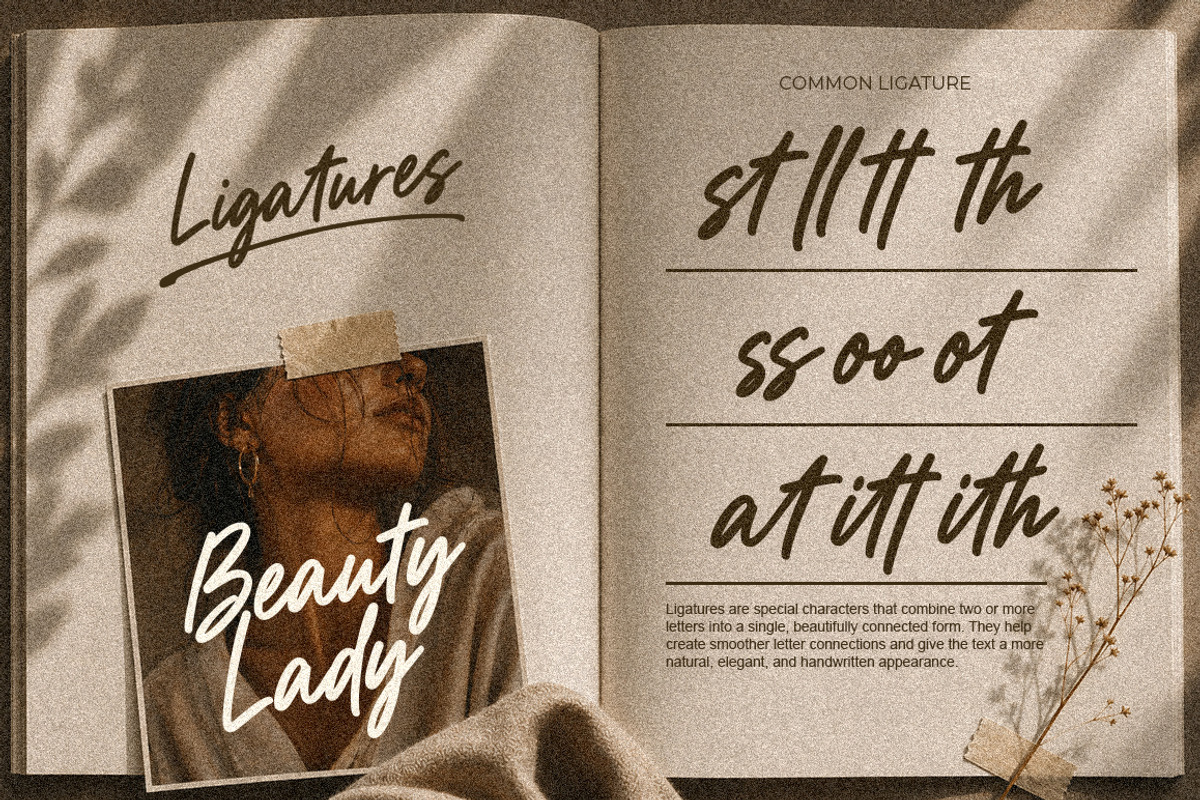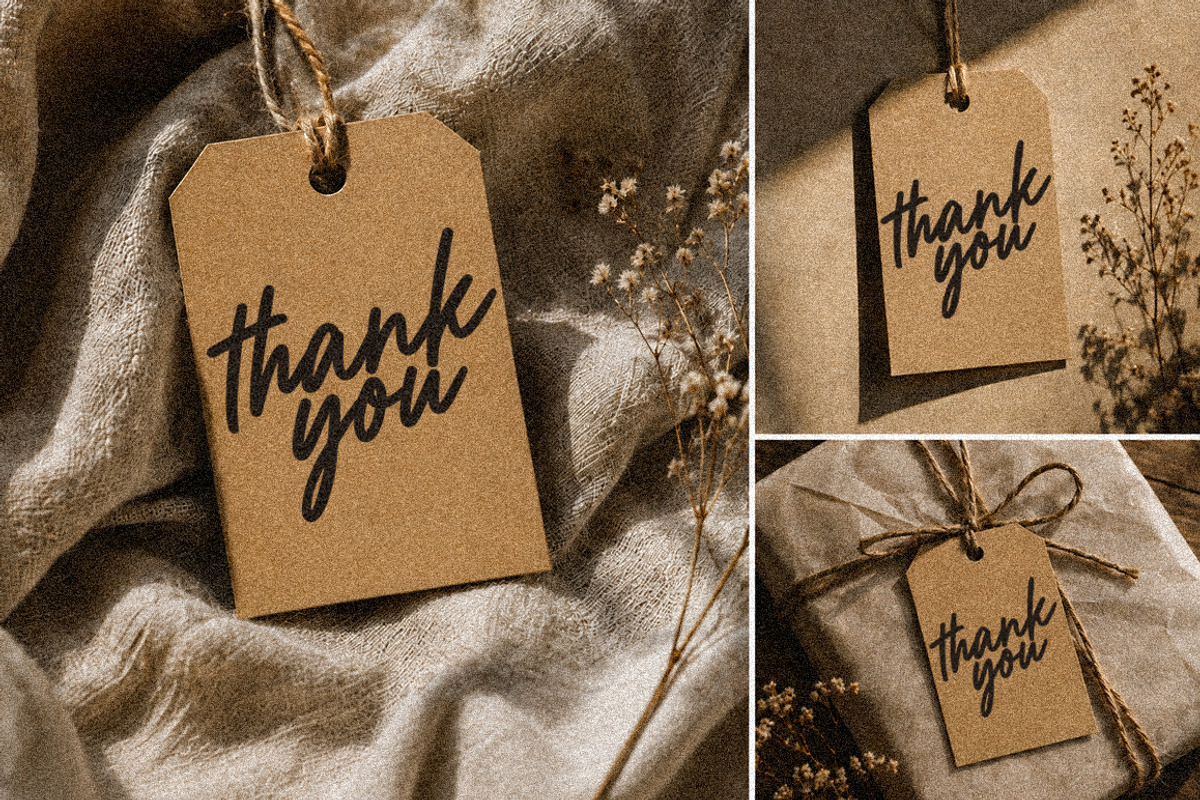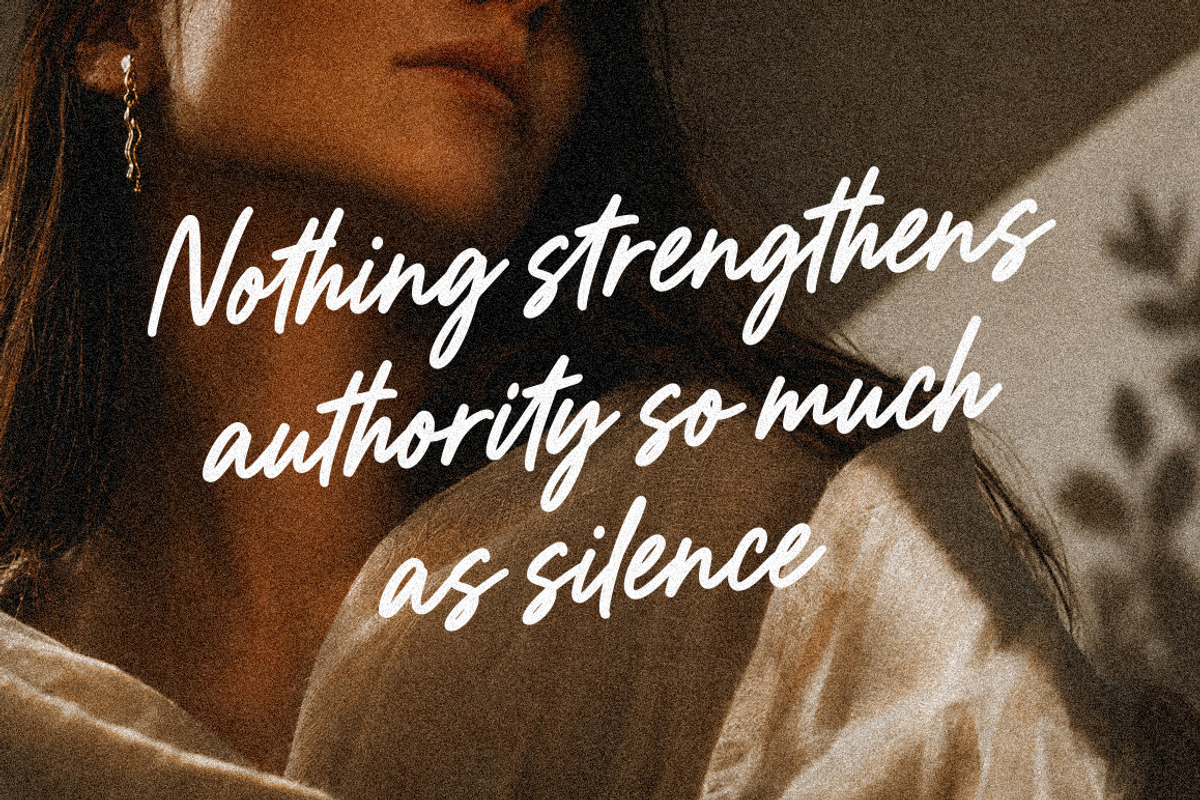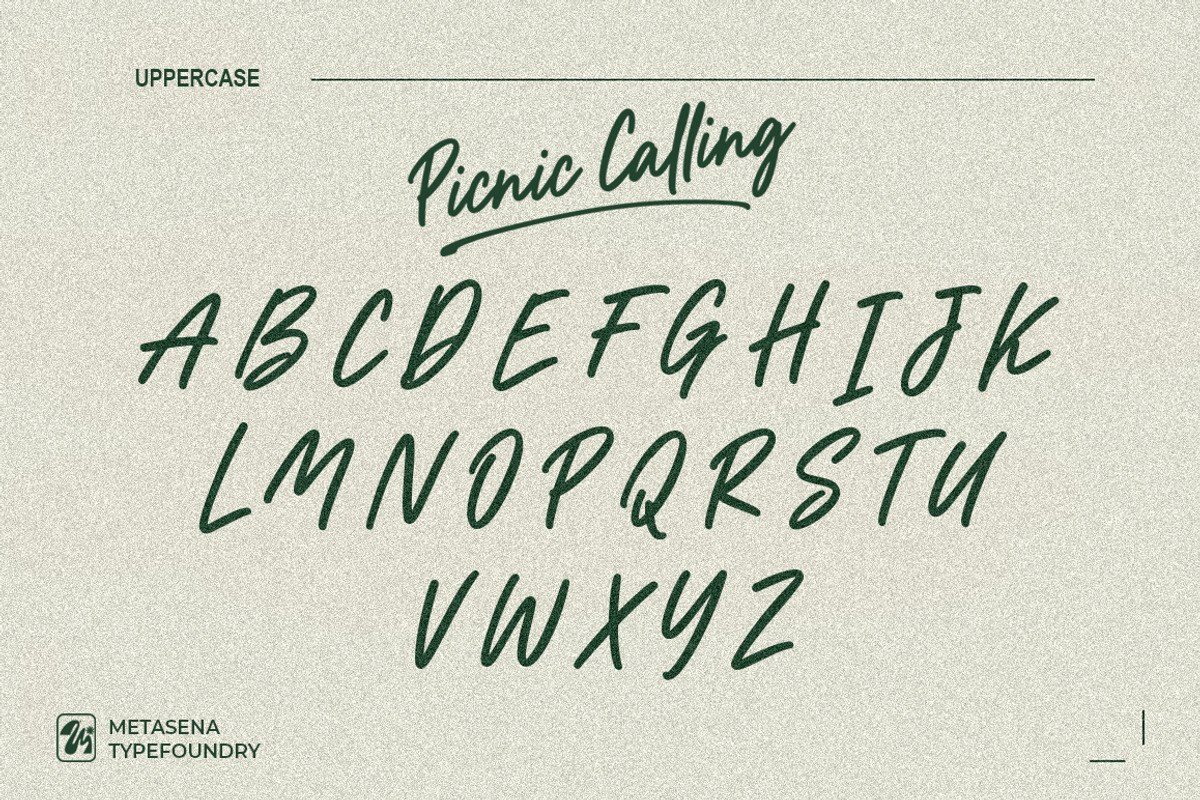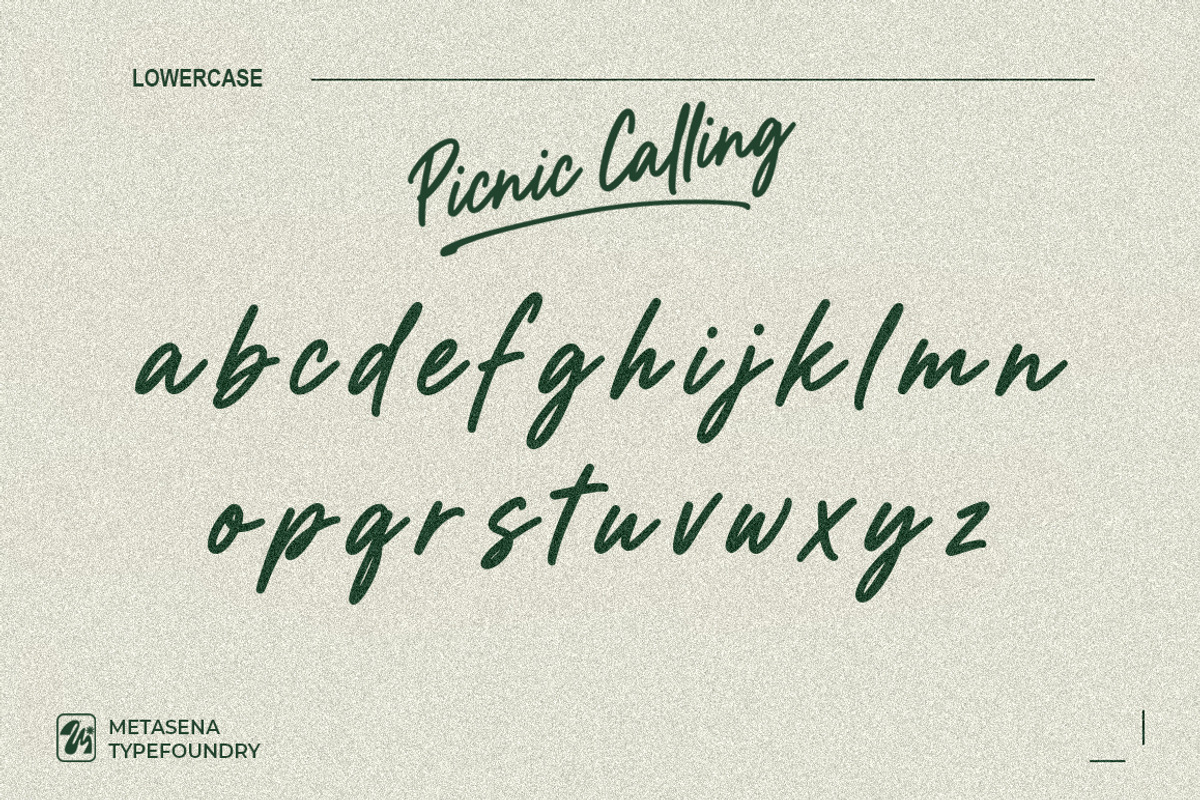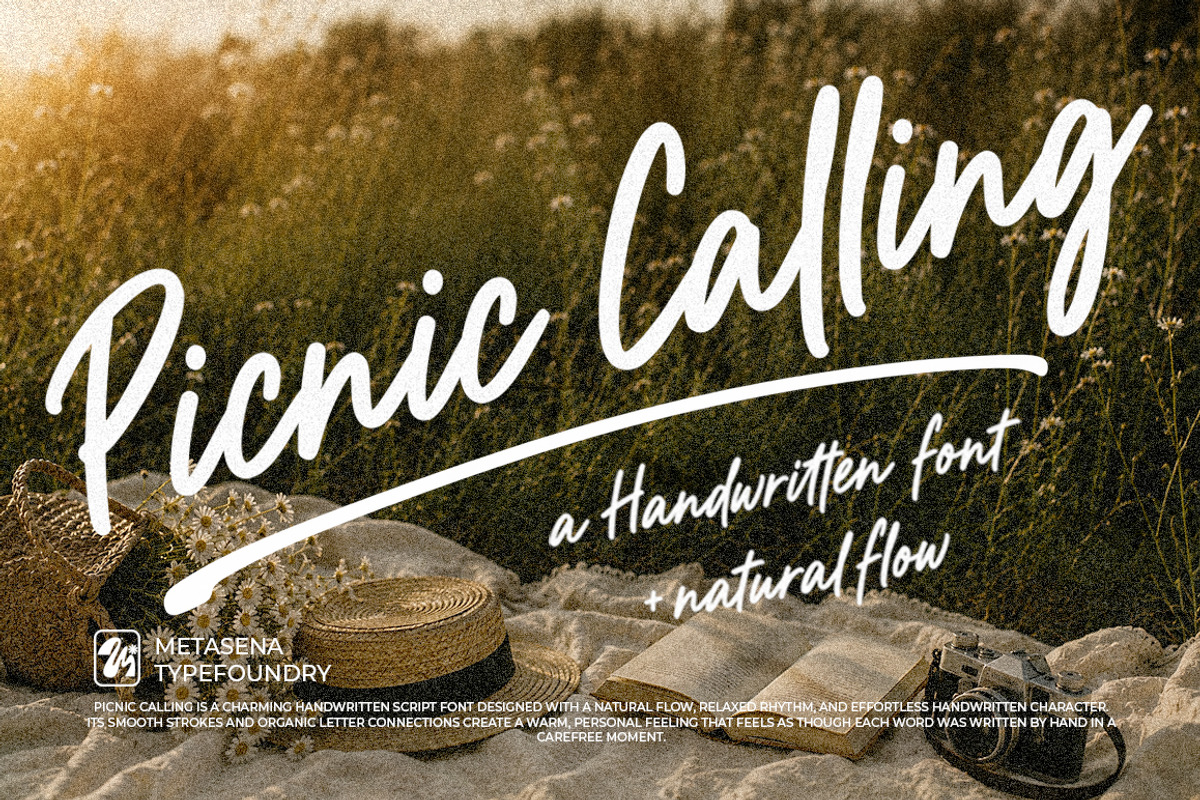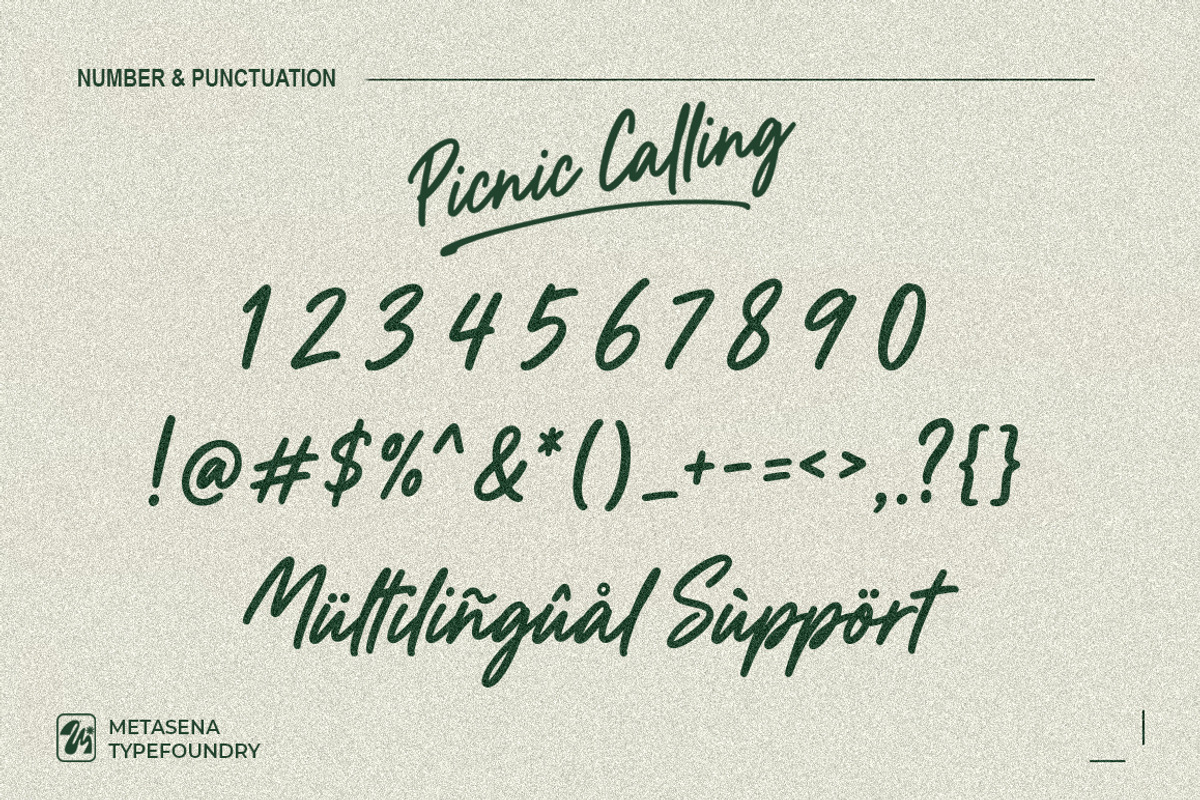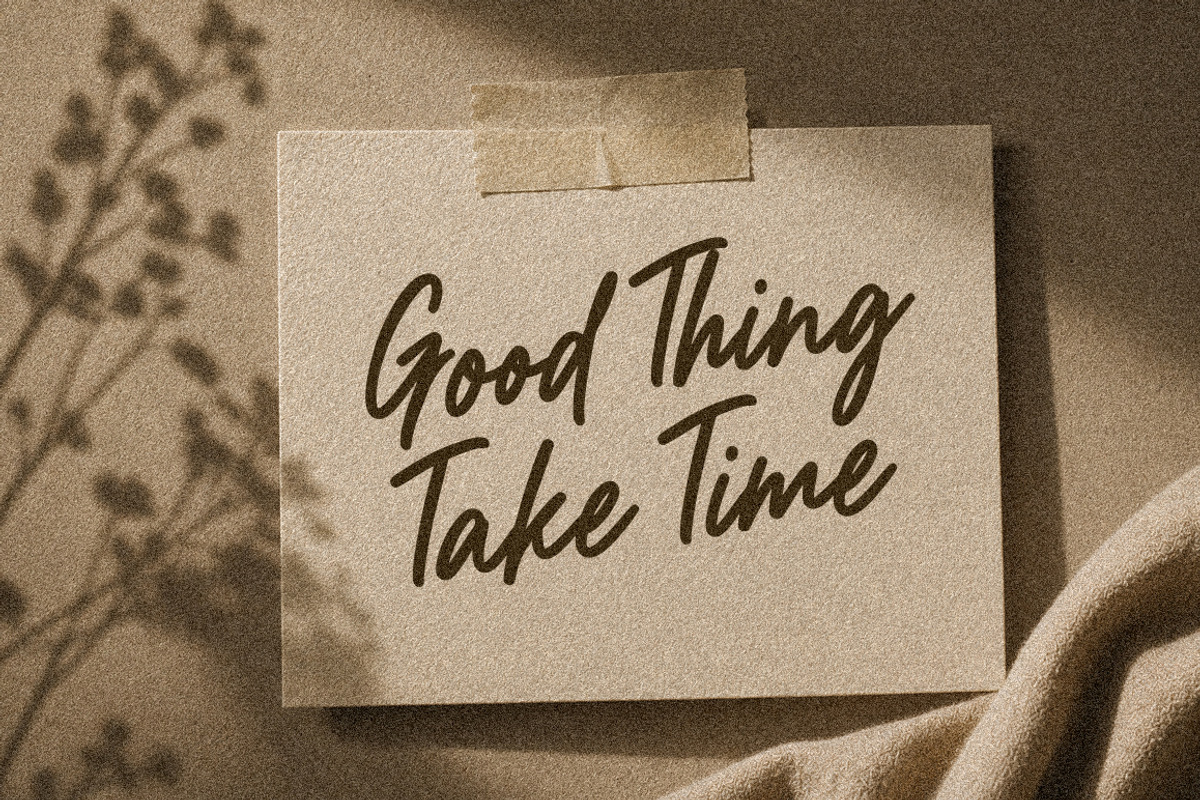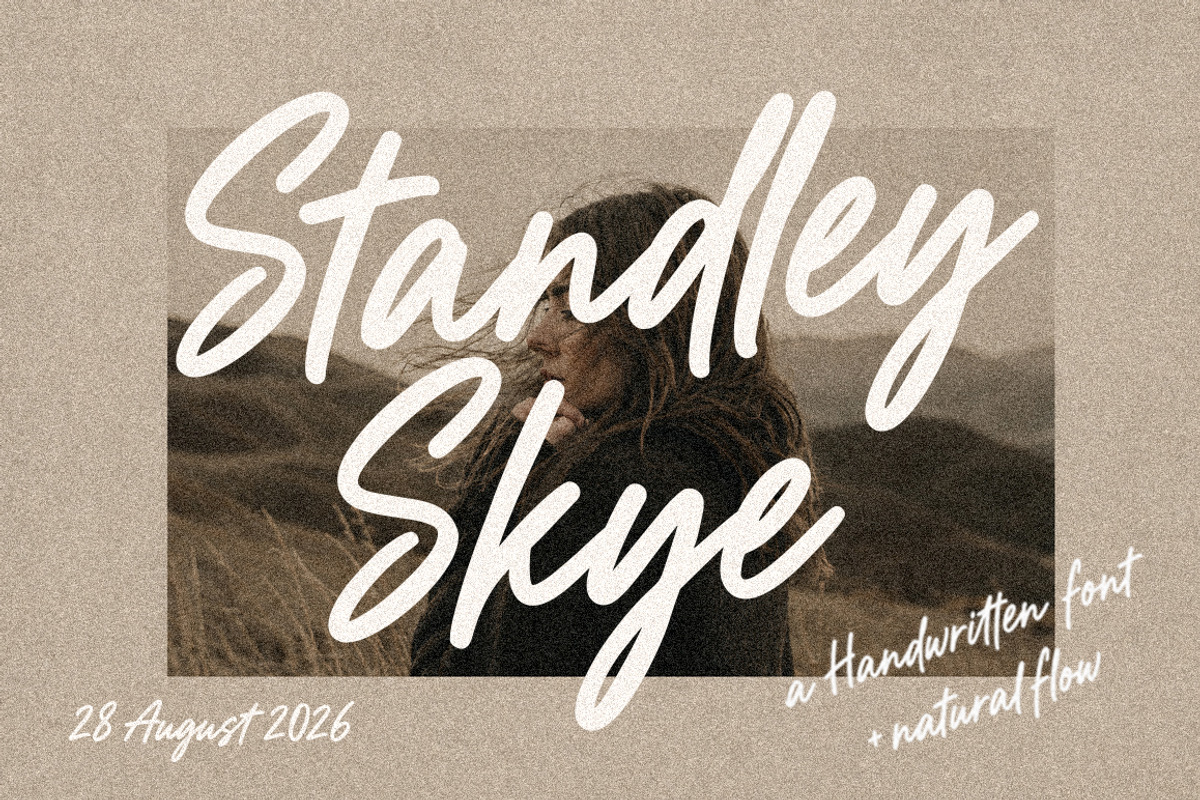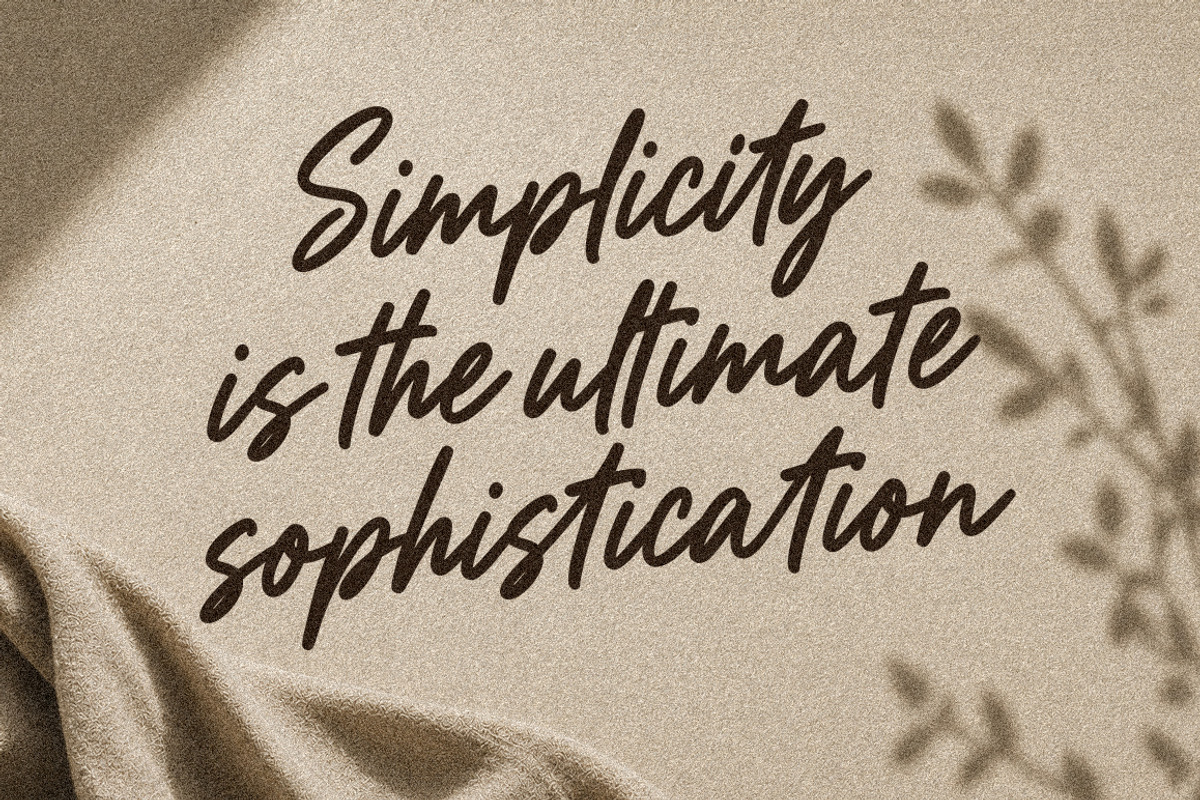
Picnic Calling
Picnic Calling is a stylish and elegant handwritten signature font created to bring a sense of personal charm, sophistication, and effortless beauty to your designs. Inspired by the natural rhythm of a handwritten signature, it features smooth flowing strokes, confident curves, and graceful letter connections that create a bold yet refined appearance.
The font combines a strong signature presence with soft, artistic details, making it versatile for both modern and timeless designs. Each word feels expressive and naturally written, giving your projects a warm, authentic, and luxurious personality without looking overly formal.
Picnic Calling is especially perfect for logos, branding, wedding invitations, beauty and fashion designs, product packaging, thank-you cards, stationery, social media graphics, quotes, posters, and personalized merchandise.
Whether you are creating an elegant brand identity or adding a personal touch to a special project, Picnic Calling brings a beautiful handwritten character that feels confident, sophisticated, artistic, and effortlessly aesthetic.